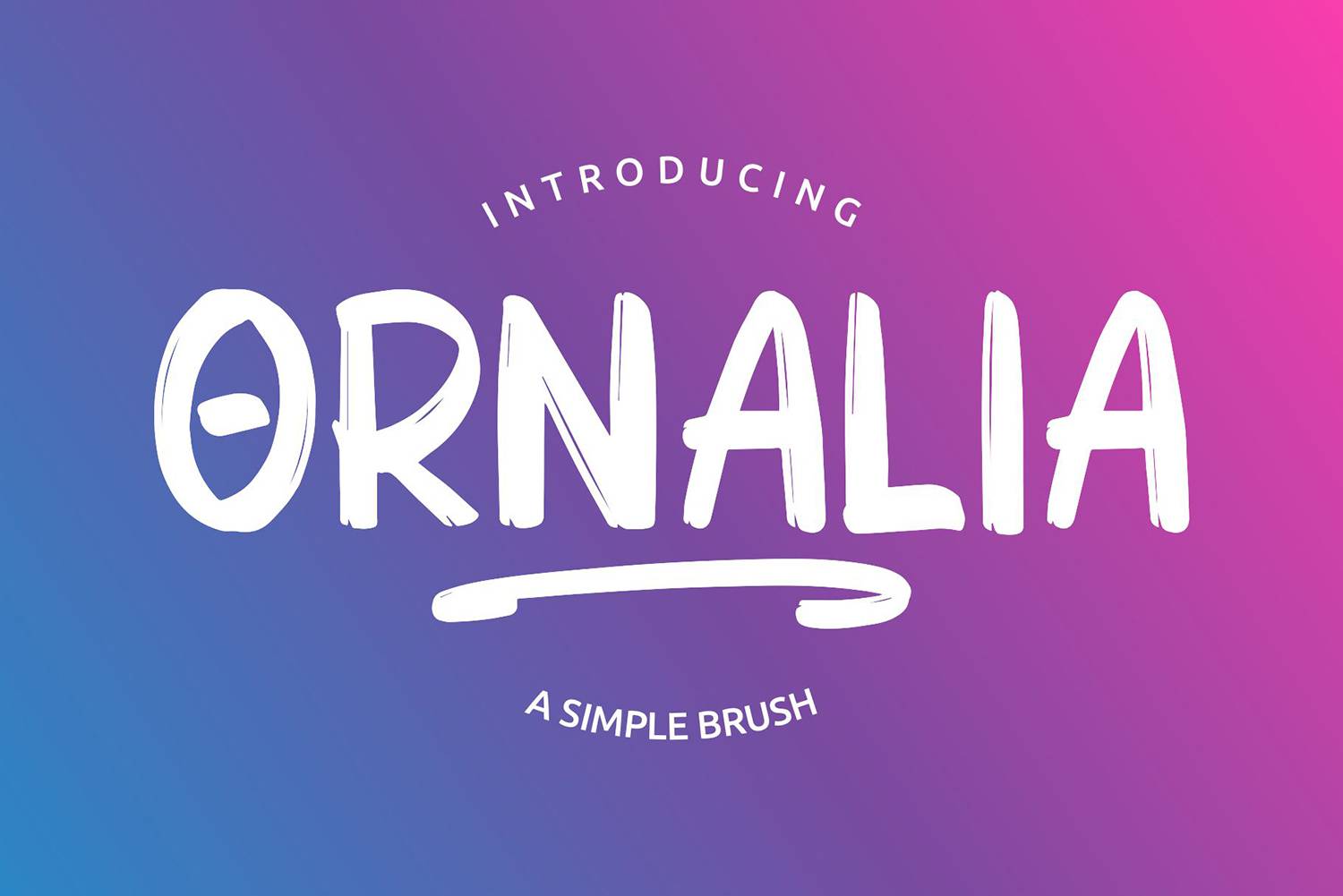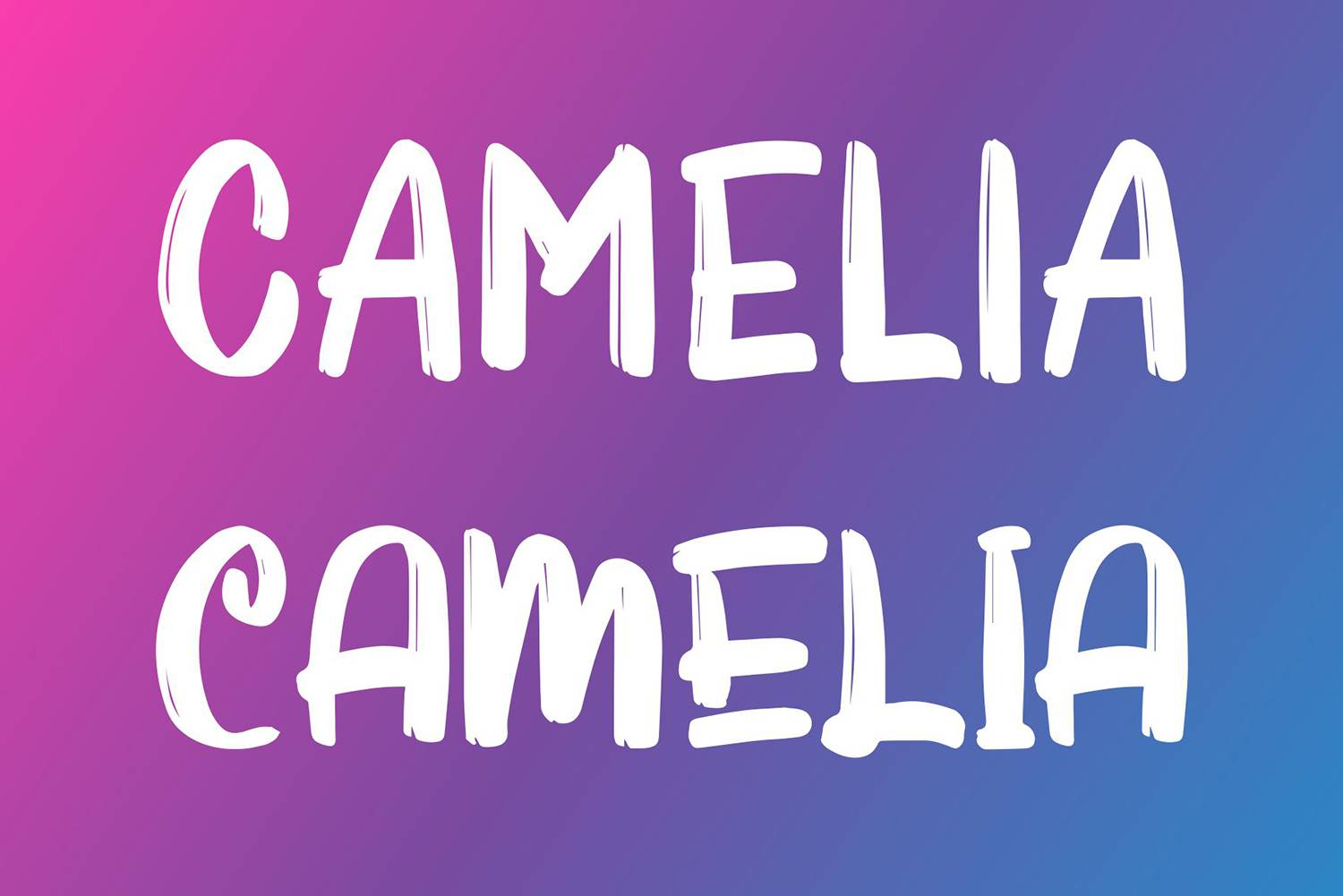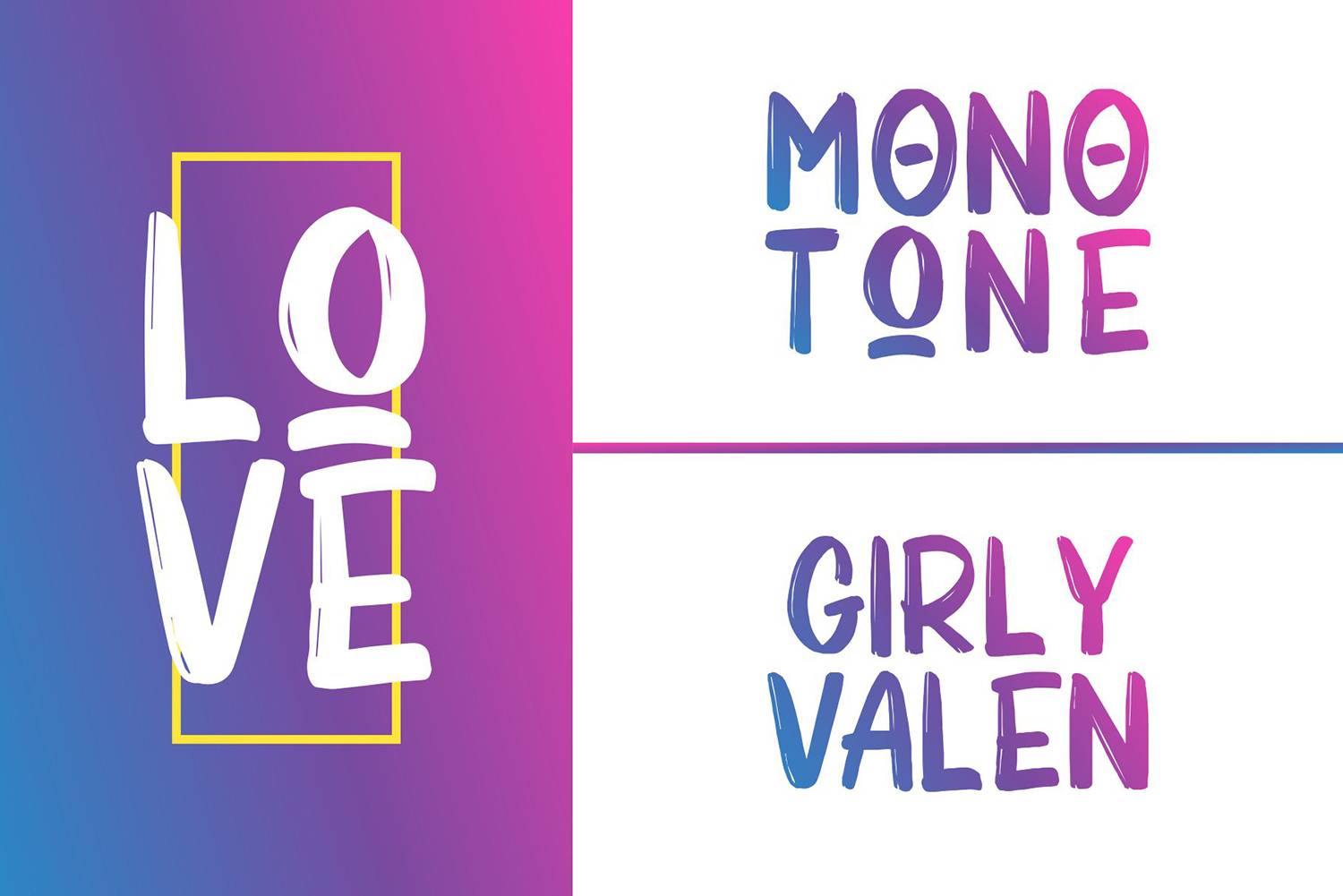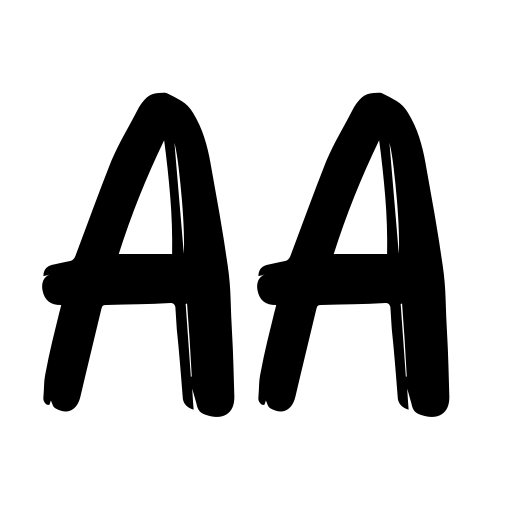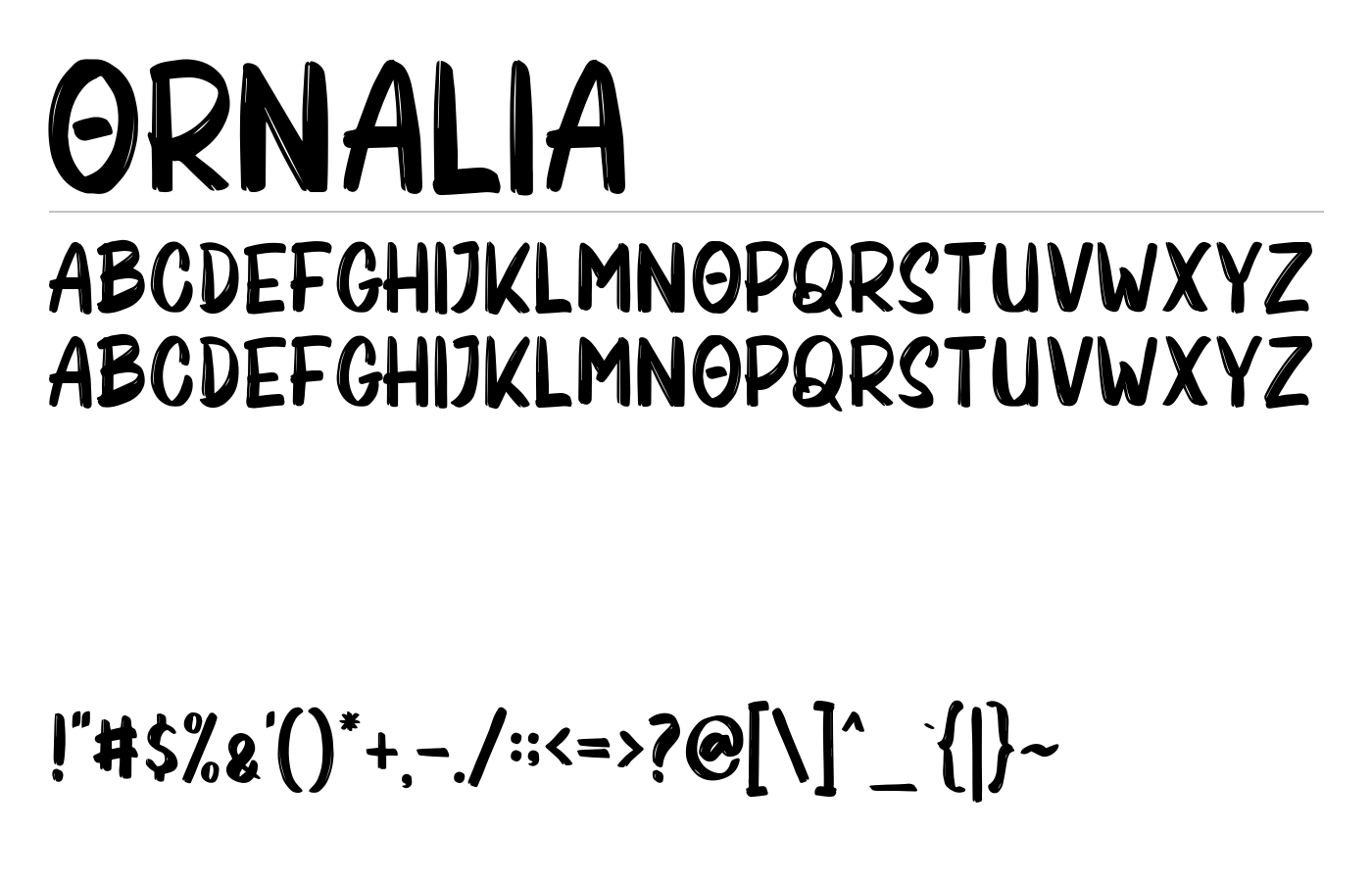
Ornalia Font is a playful and bold sans serif typeface with a hand-drawn, casual feel. Its slightly irregular strokes and lively character shapes make it perfect for fun, informal designs, branding, and headlines that need a friendly and approachable vibe. This font works well in creative projects, children’s media, posters, and websites where a personable, energetic tone is desired.
Ornalia Font
About Ornalia Font
| Font family | Ornalia Font |
| Release date | 2019-01-11 |
| Designer | Good Java Studio |